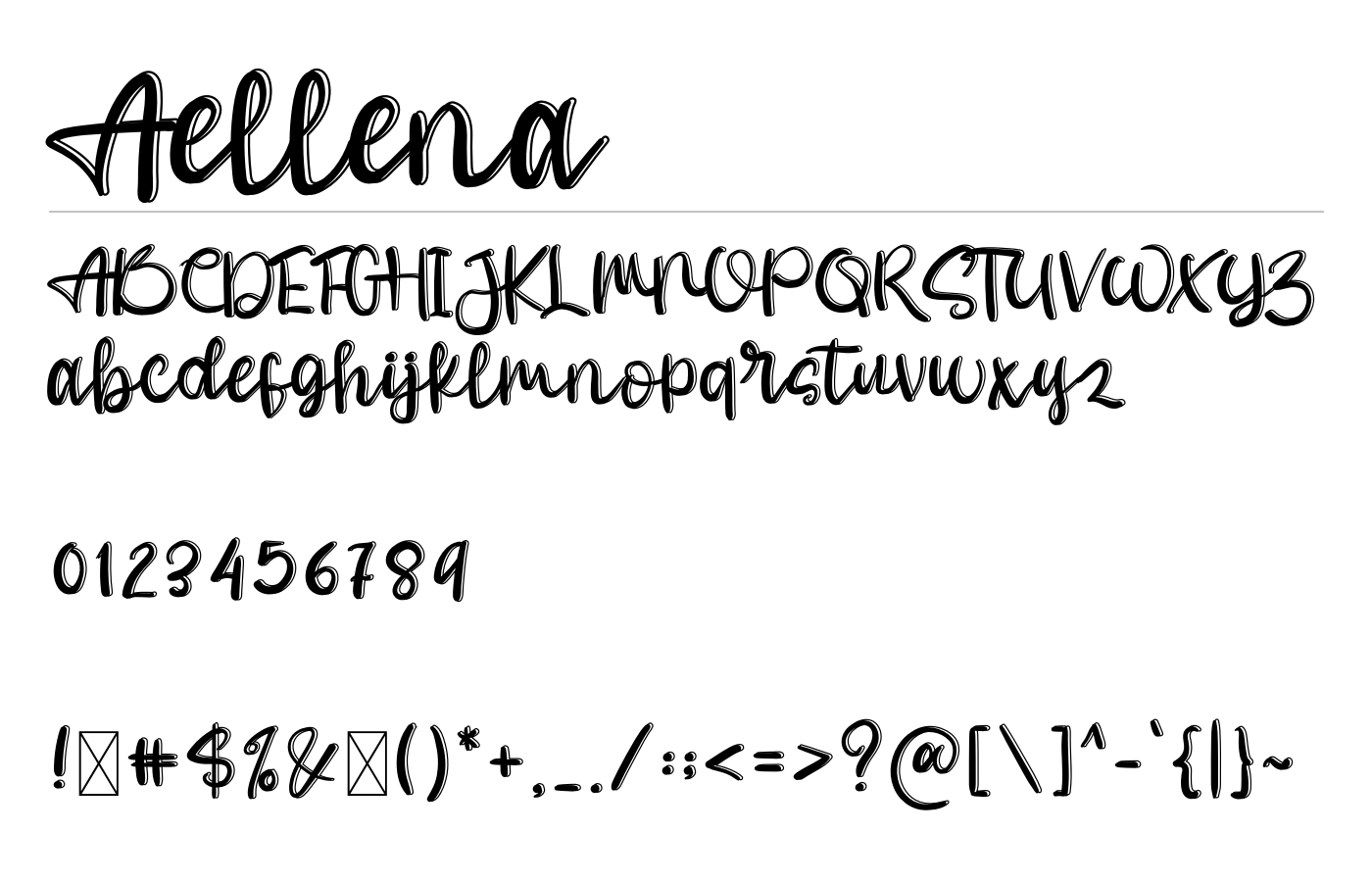
Aellena is a lively, handwritten script font with a casual and playful character, featuring smooth, rounded strokes and a slightly whimsical flair. Its bold weight and fluid letterforms make it ideal for creative projects, invitations, branding, and social media, where a friendly and approachable feel is desired. This font adds a personal, artistic touch that works well for expressive, modern designs seeking warmth and personality.
Aellena Font
About Aellena Font